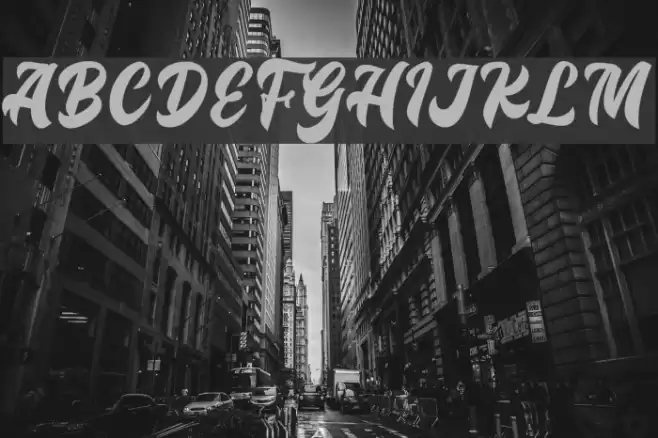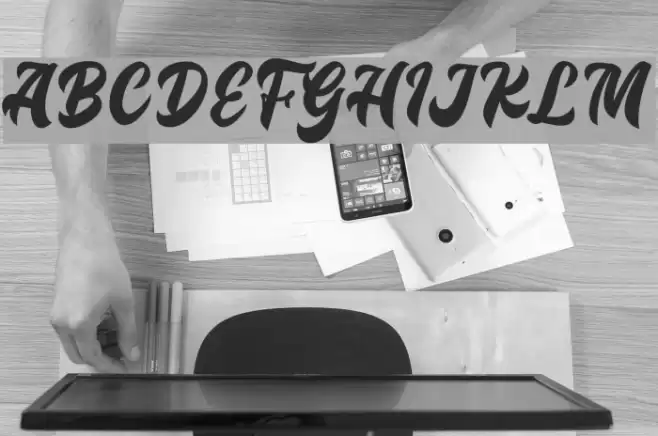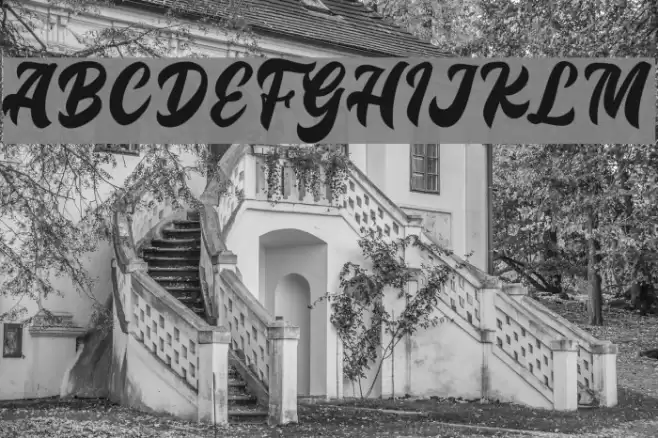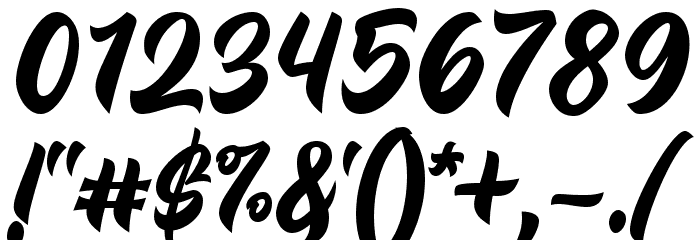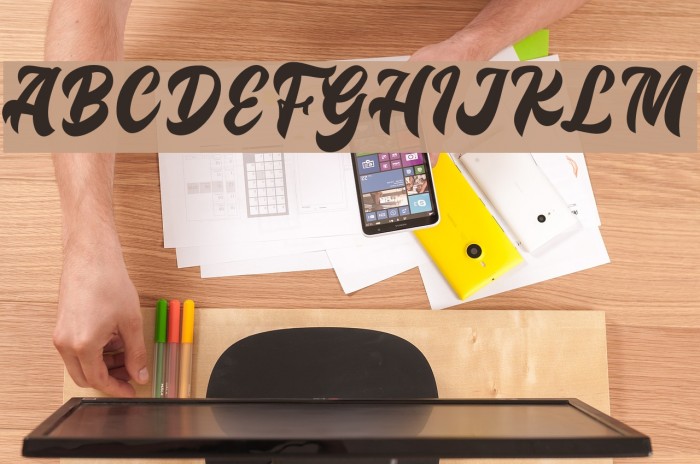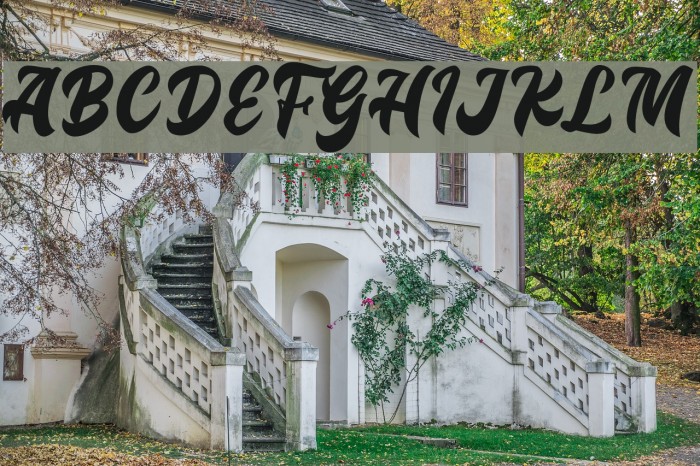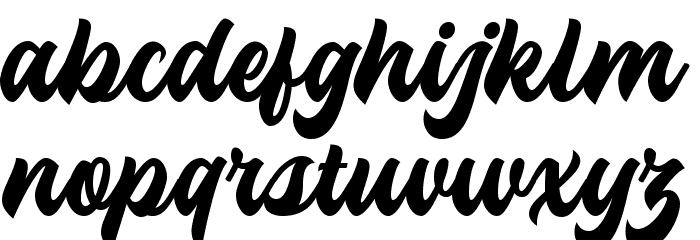
Troche Font
Troche Description
This font features a bold, flowing script style that exudes a sense of elegance and dynamism. The characters are interconnected with smooth, sweeping curves, giving it a handwritten appearance. The uppercase letters are particularly striking, with dramatic flourishes that enhance its decorative appeal. The lowercase letters maintain a consistent flow, complementing the uppercase with their rounded forms. Numbers and special characters are designed with the same attention to detail, ensuring a cohesive look across all glyphs. The overall design is both artistic and legible, making it suitable for a variety of creative applications.
A bold, flowing script font with elegant, interconnected characters from Uncategorized fonts.
- Proposed Projects: Ideal for wedding invitations, branding projects, logo design, and greeting cards.
- Use Case: Logos, Headlines, Invitations